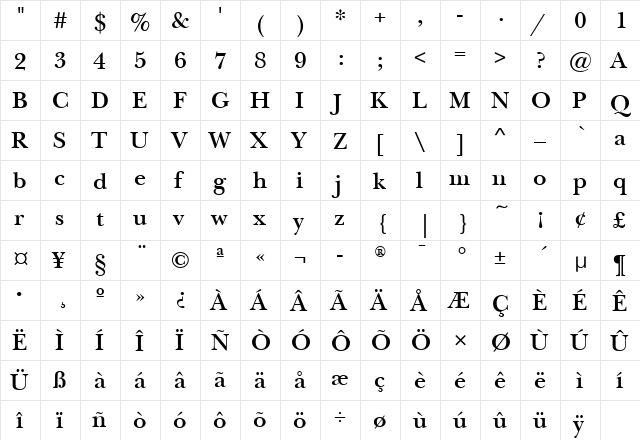
NewBaskervilleSemITC Medium
Design Context for NewBaskervilleSemITC Typeface
NewBaskervilleSemITC offers clean, dependable letterforms without strong stylistic allegiance, making it a practical choice for designers who need flexibility.